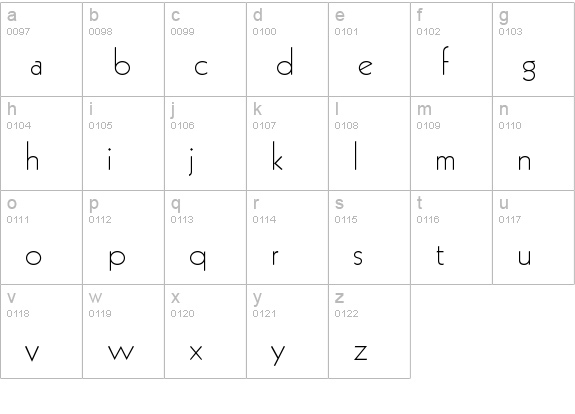
Kabel Light is a refined, elegant variant in the Kabel typeface family \xE2\x80\x94 well suited to elegant body text, refined sub-headings, and luxury branding.
Kabel Light font is a stunning typeface that exudes elegance and sophistication. Its sleek and modern design makes it perfect for a wide range of creative projects, from branding and advertising to editorial layouts and web design. With its clean lines and balanced proportions, Kabel Light font captures attention effortlessly while maintaining a sense of professionalism. Its rounded terminals and subtle geometric shapes create a harmonious and visually pleasing appearance that is both timeless and versatile. One of the most appealing aspects of Kabel Light font is that it is available for free download at FontsMarket.com. This means that designers and typographers can easily access this exceptional font without any cost, making it an invaluable resource for any creative endeavor. Whether you are working on a personal project or a commercial venture, Kabel Light font is sure to elevate your design to new heights. Its legibility and clarity make it suitable for both headlines and body text, ensuring that your message is effectively conveyed to your audience. The versatility of Kabel Light font is further enhanced by its extensive character set, which includes a wide range of special characters, punctuation marks, and accents. This allows for seamless integration into multilingual projects and ensures that your typography remains consistent across various languages. So, if you are in search of a remarkable font that combines elegance, versatility, and affordability, look no further than Kabel Light font. Download it for free at FontsMarket.com and unlock a world of creative possibilities.